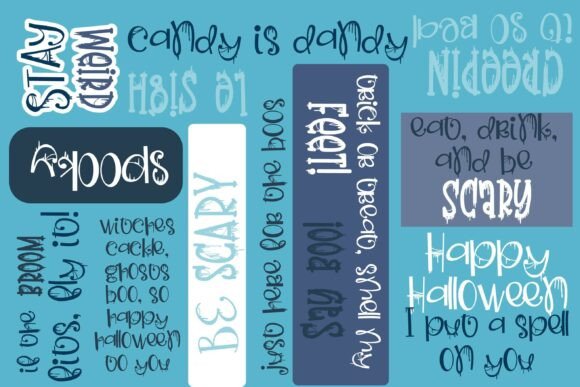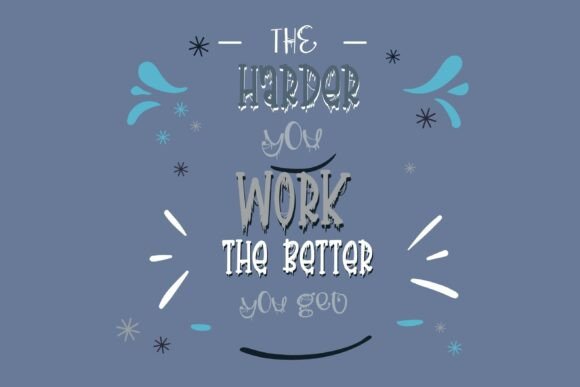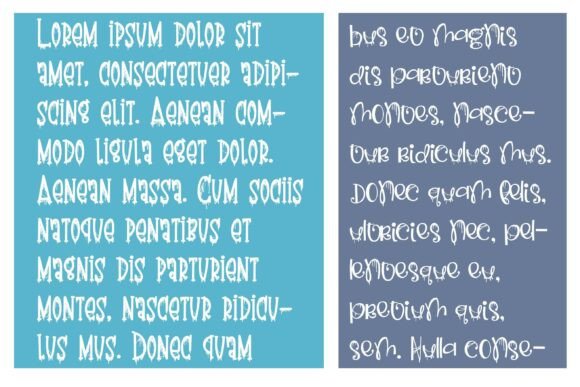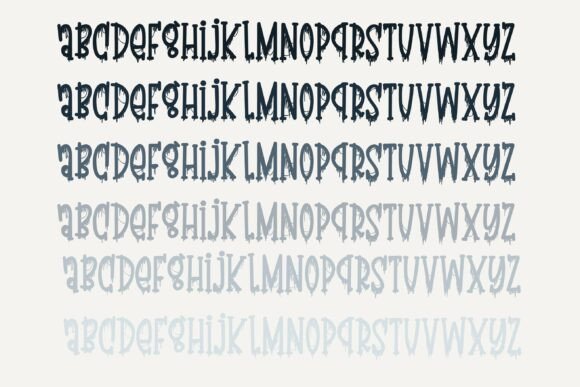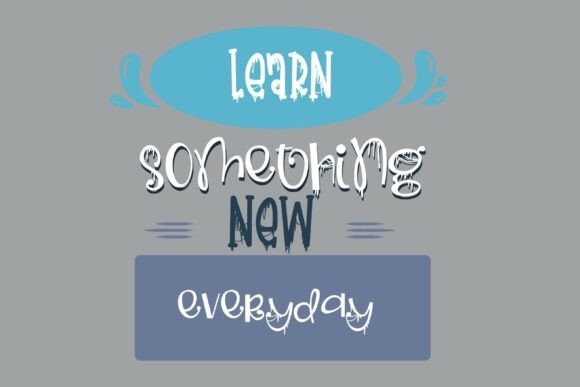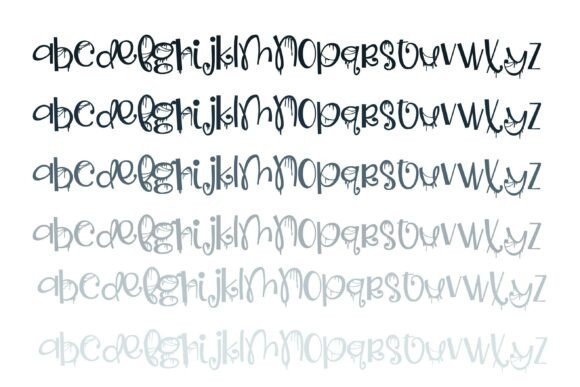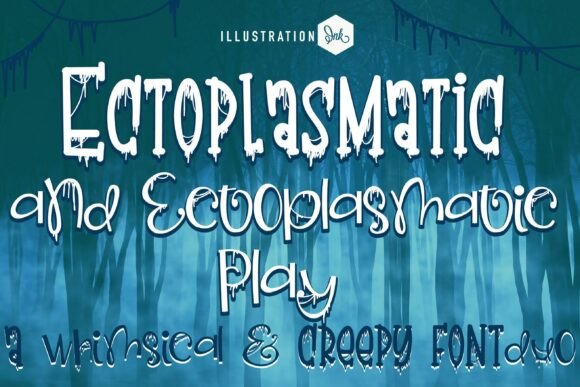
Ectoplasmatic Duo Font: A Creepy, Hand-Crafted Font Duo for Designers and Crafters
Are you looking for a unique and eye-catching font to add a touch of spookiness to your designs? Look no further than the Ectoplasmatic Duo Font. This hand-crafted font duo combines a creepy, scary, ooze-dripping font perfectly coordinated for print. With all family members combined of the two fonts, you get 12 fonts all together!
What are Hand-Crafted Fonts?
Hand-crafted fonts, also known as handwritten fonts, are a type of font that mimics the appearance of handwriting. They are created by hand, often using a digital drawing tool or a physical medium like a pen or pencil. Hand-crafted fonts can be either formal or informal, and they can be used for a variety of purposes.
Characteristics of Handwritten Fonts
Some of the characteristics of handwritten fonts include:
• The letters are not perfectly uniform in size or shape.
• There may be slight variations in the spacing between letters and words.
• The font may have a “wiggly” or “squiggly” appearance.
• The font may be difficult to read at small sizes.
Benefits of Using Handwritten Fonts
Handwritten fonts can be a great way to add a casual touch to your designs. They can also be used to create a sense of nostalgia or whimsy. Handwritten fonts can be used for a variety of projects, including:
• Invitations and greeting cards
• Signs and posters
• Digital graphics and social media posts
• Packaging and branding
Tips for Choosing the Right Handwritten Font
However, it is essential to choose a handwritten font that is appropriate for the project you are working on. A formal handwritten font may not be suitable for a casual invitation, while an informal handwritten font may not be suitable for a corporate document.
When choosing a handwritten font, consider the following factors:
• The tone and style of your project
• The audience and purpose of your project
• The level of formality or informality required
Ectoplasmatic Duo Font: A Creepy and Unique Font Duo
The Ectoplasmatic Duo Font is a hand-crafted font duo that is perfect for designers and crafters looking to add a touch of spookiness to their projects. This font duo includes 12 fonts, each with its unique characteristics and features.
The Ectoplasmatic Duo Font is ideal for:
• Halloween-themed projects
• Horror and suspense-themed projects
• Creepy and spooky designs
• Unique and eye-catching typography
In conclusion, the Ectoplasmatic Duo Font is a unique and creepy hand-crafted font duo that is perfect for designers and crafters looking to add a touch of spookiness to their projects. With its 12 fonts and hand-crafted characteristics, this font duo is ideal for a variety of projects, from Halloween-themed designs to horror and suspense-themed projects.
Whether you’re a designer, crafter, or DIY enthusiast, the Ectoplasmatic Duo Font is a great addition to your font collection. So why settle for a boring, generic font when you can add a touch of creepiness and uniqueness to your designs with the Ectoplasmatic Duo Font?